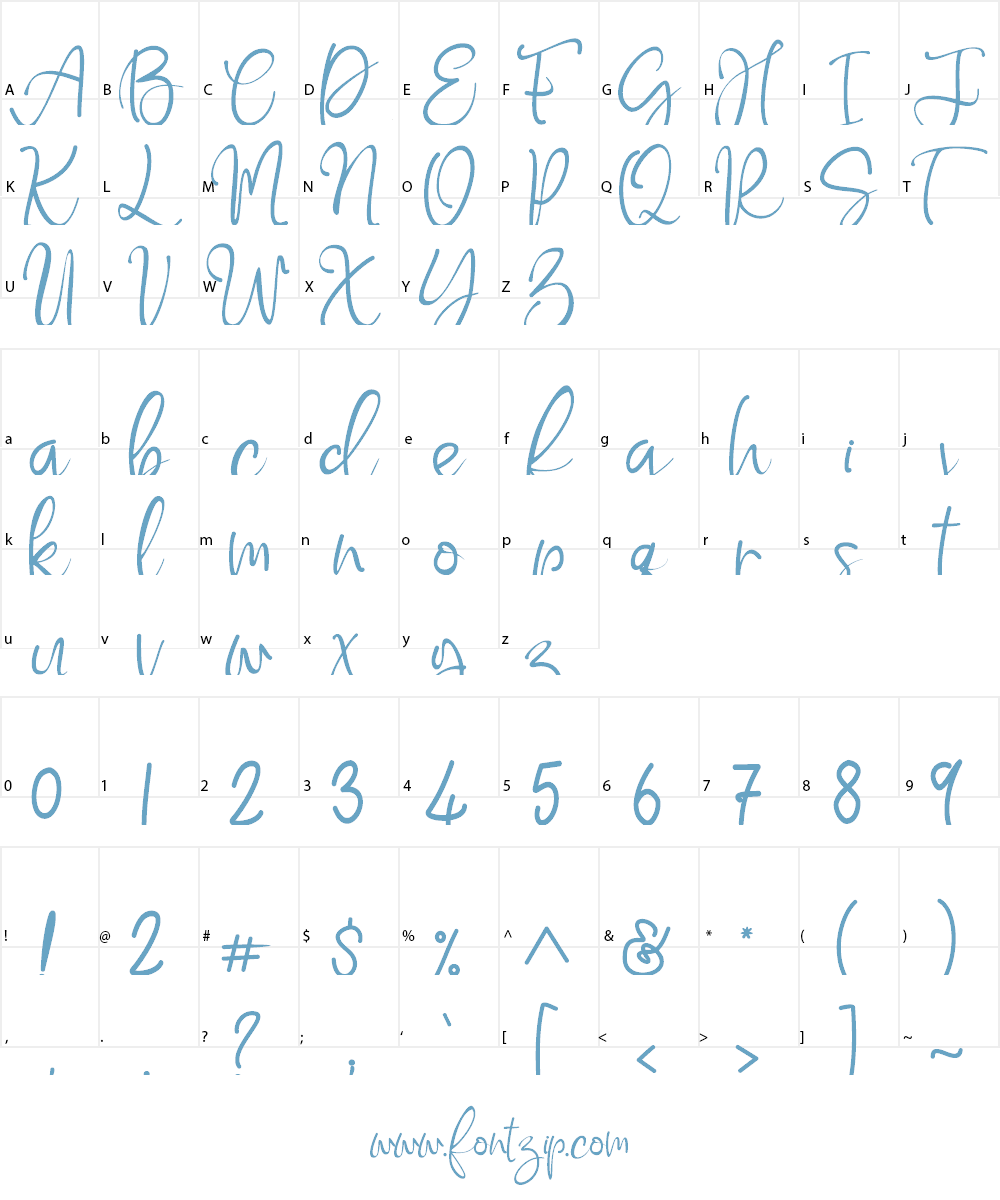
Hi Font Lover! This is a modern calligraphy font with the current handwriting style.
Flaming Carrot font is an evolution of "adventure dreamer font". Flaming Carrot Font designed and shared by letterara.
Flaming Carrot Font is Handwritten font. With Handwritten style this font will perfect for many different project, example: invitations, greeting cards, posters, name card, quotes, blog header, branding, logo, fashion, apparel, letter, stationery and more !
This font is easy to use, the basis if this unique font is it’s simplicity.
Flaming Carrot font is an evolution of "adventure dreamer font". Flaming Carrot Font designed and shared by letterara.
Flaming Carrot Font is Handwritten font. With Handwritten style this font will perfect for many different project, example: invitations, greeting cards, posters, name card, quotes, blog header, branding, logo, fashion, apparel, letter, stationery and more !
This font is easy to use, the basis if this unique font is it’s simplicity.